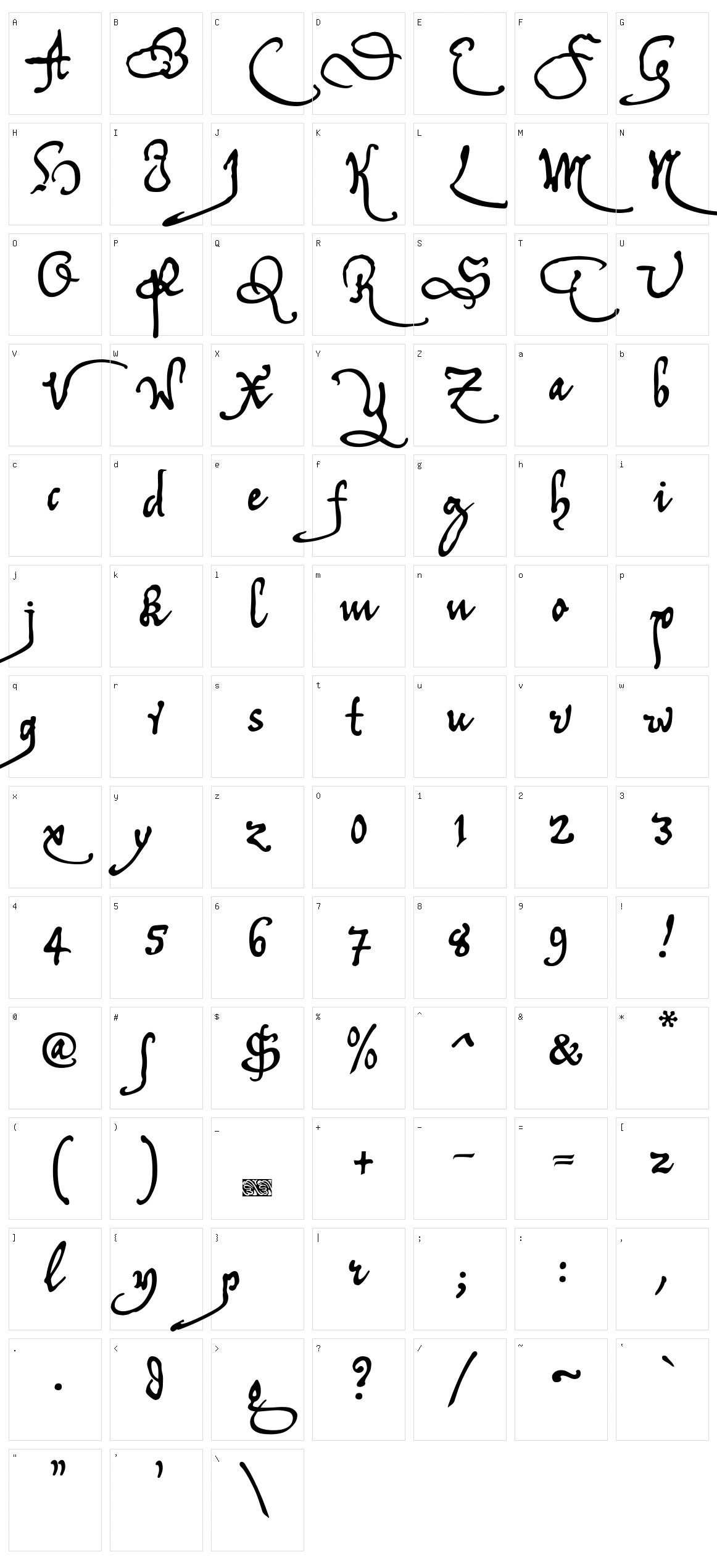
This font is based on the handwriting in three manuscript pages from the early 17th century, most probably written by the Danish king Christian IV's court chemist Peter Payngk. They are on show among the digital exhibits of the Royal Library of Denmark:
The font name was inspired by the title of the text. Called 'Elixyr Tychonis', it consists of the 'Description of a medecine (...) against the Plague, and all Morbos Epidemicos', offered to the queen of Denmark, by Lady Sophie Brahe, sister of the great astronomer Tycho Brahe.
A major UPDATE has been going on, for the 2010 version. The *l* and *t* have been reworked, to sit on the line now. Three alternate characters -- the *g*, *y*, and *p* -- have changed places with the regular ones, and I've designed a new, modern-looking *K* (the original one was really a bit odd). Of course, like in all the other fonts, the composite glyphs have been redesigned, and the dashes have become longer.
The list of alternate characters has changed in 2010. These are now:
- an alternate *d* on the 'less' sign
- an alternate -- i.e. the formerly regular -- *g* on the 'more' sign
- an alternate *z* on the right bracket (sitting on the line, as opposed to the regular one)
- an alternate *l* on the left bracket
- an alternate -- i.e. the formerly regular -- *y* on the right curly bracket
- an alternate -- i.e. the formerly regular -- *p* on the left curly bracket
- an alternate *r* on the 'bar' and 'broken bar' sign
- a double *long s* on the long s sign
- the double *f* ligature, and the original *K* on the *fi* and *fl*. In case those aren't reachable on your computer, please try the masculine and feminine ordinal indicators, or the 'less-than or equal to' and the 'greater than or equal to' signs.
There is no number sign in this font. In its place, you'll find a *long s*.
The pair of winged beasts on the micro sign was inspired by a detail from a very elaborate Lombardic initial.